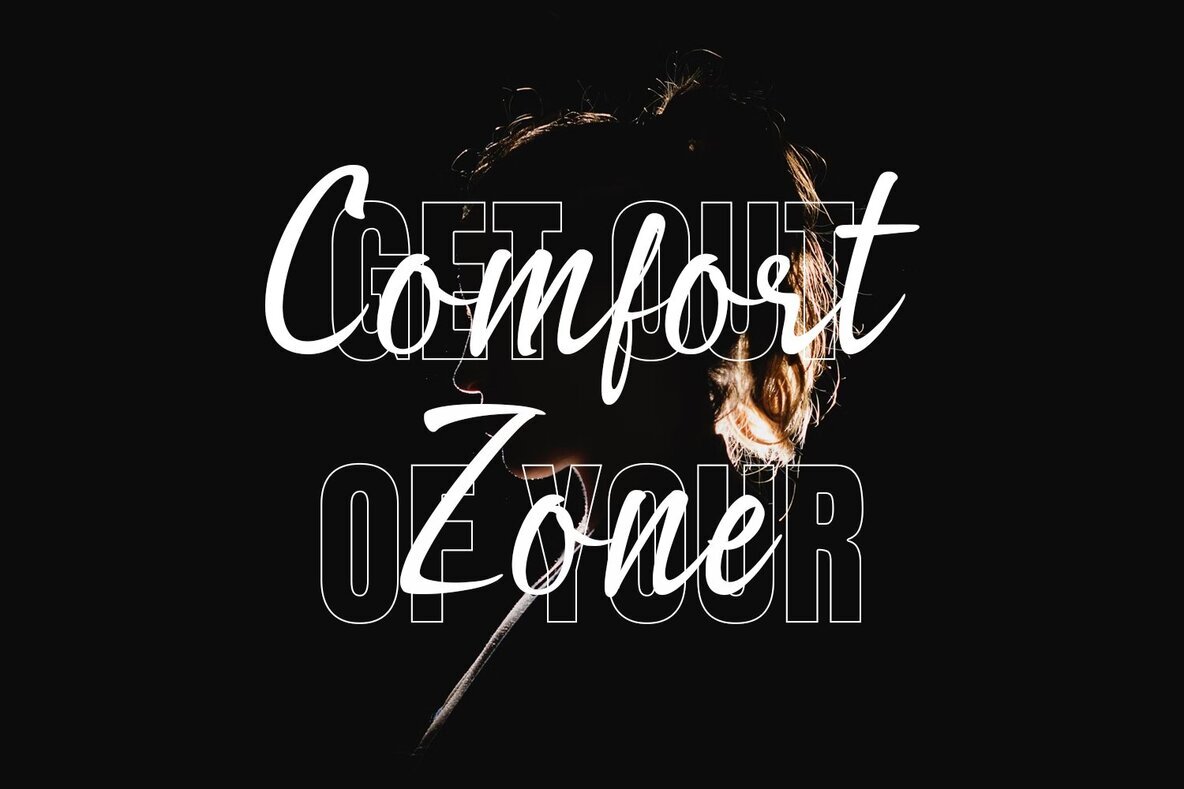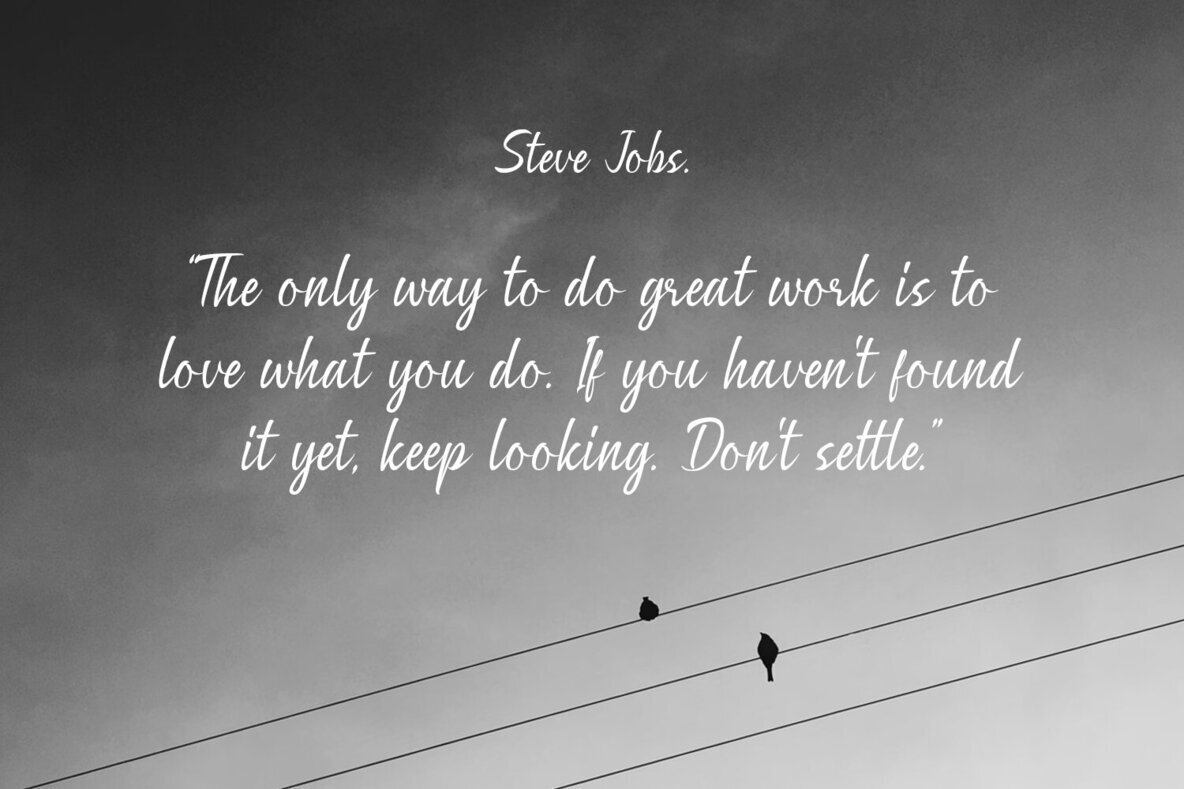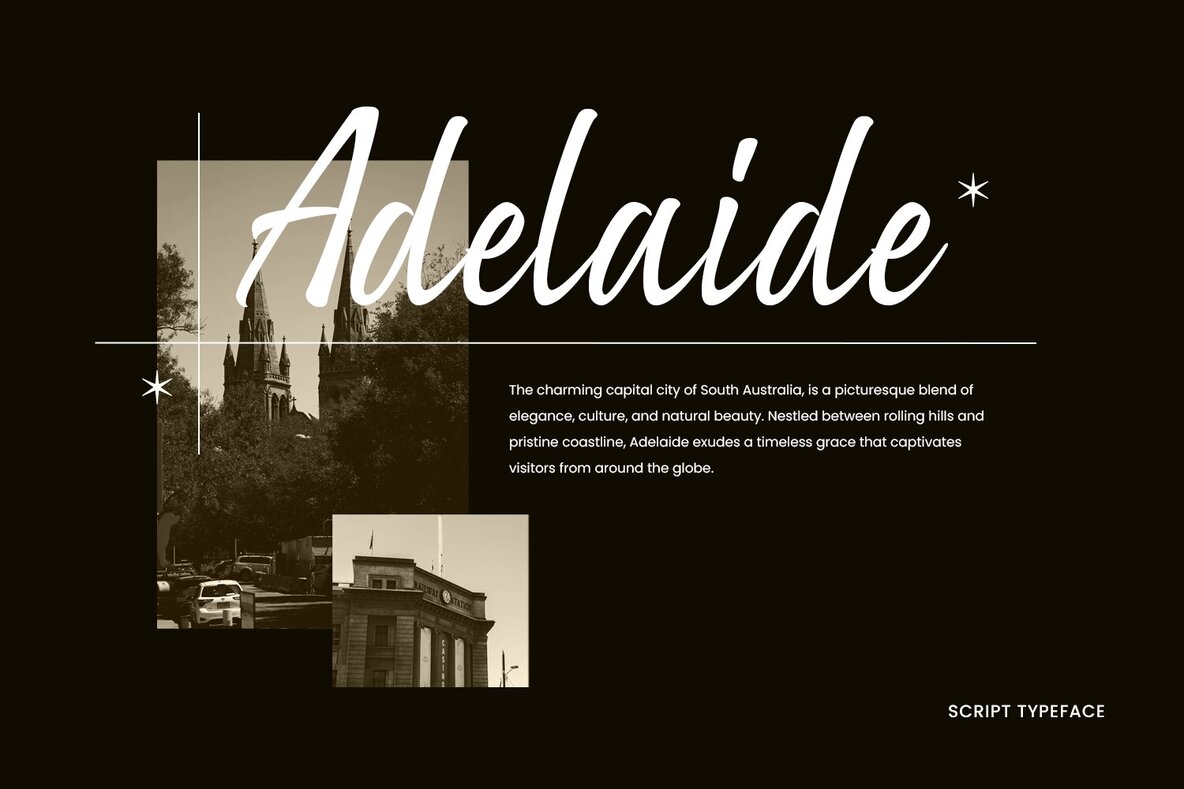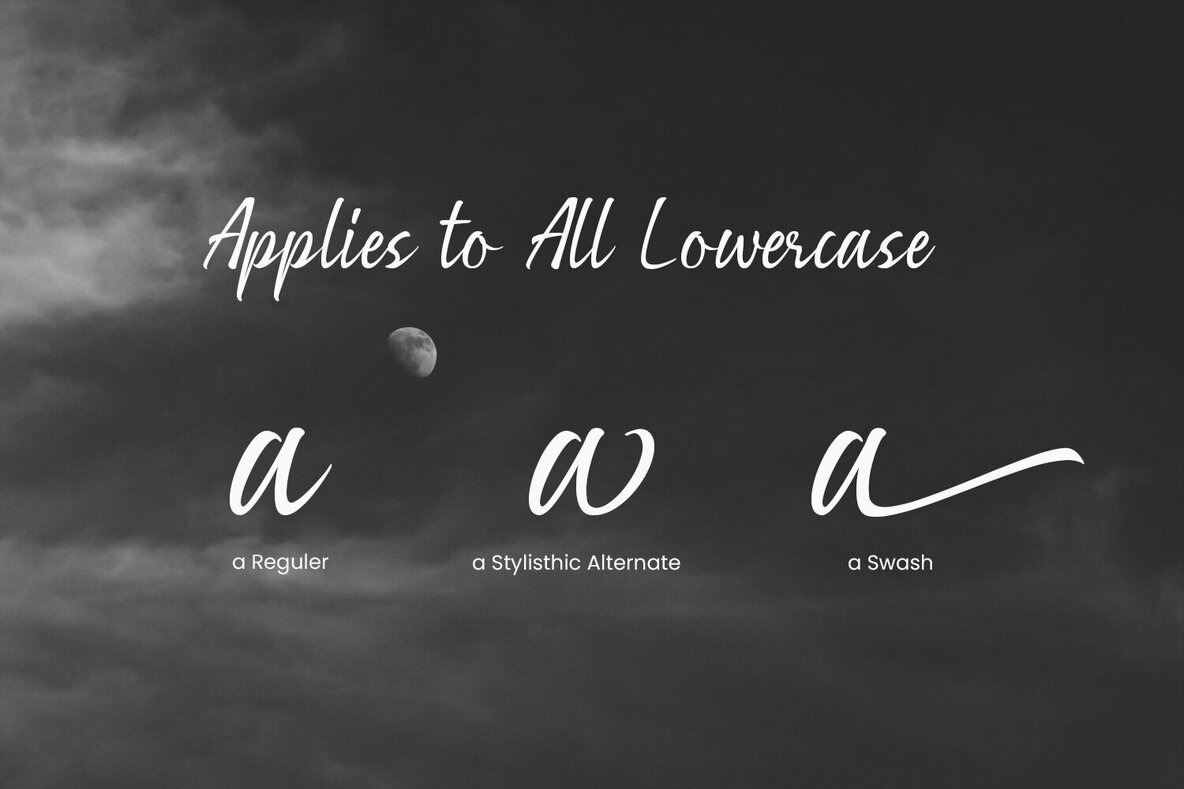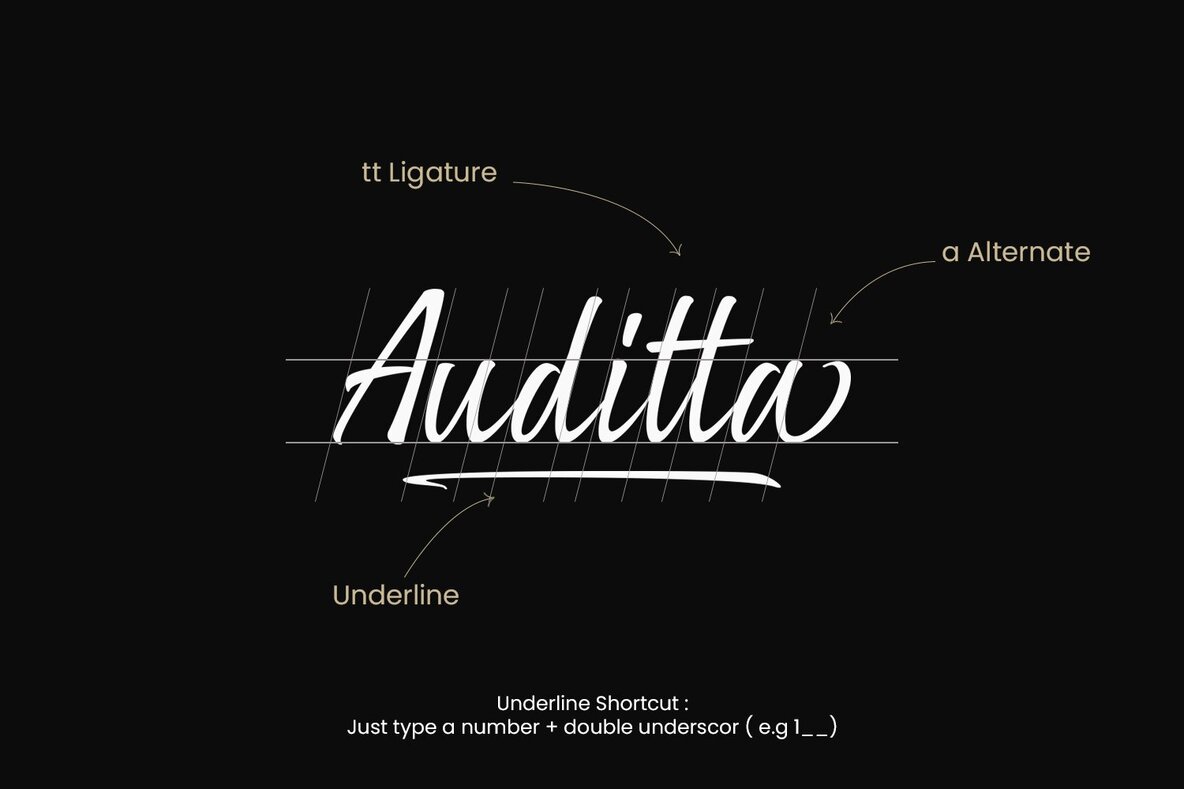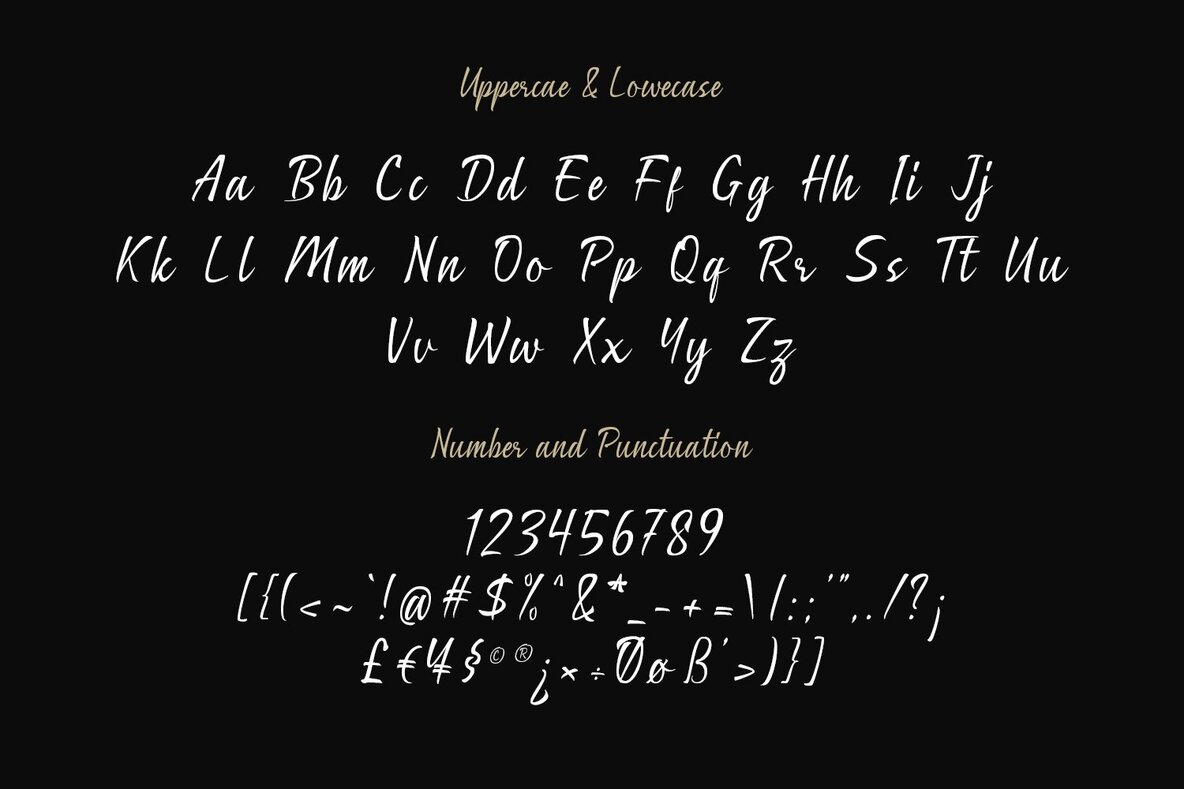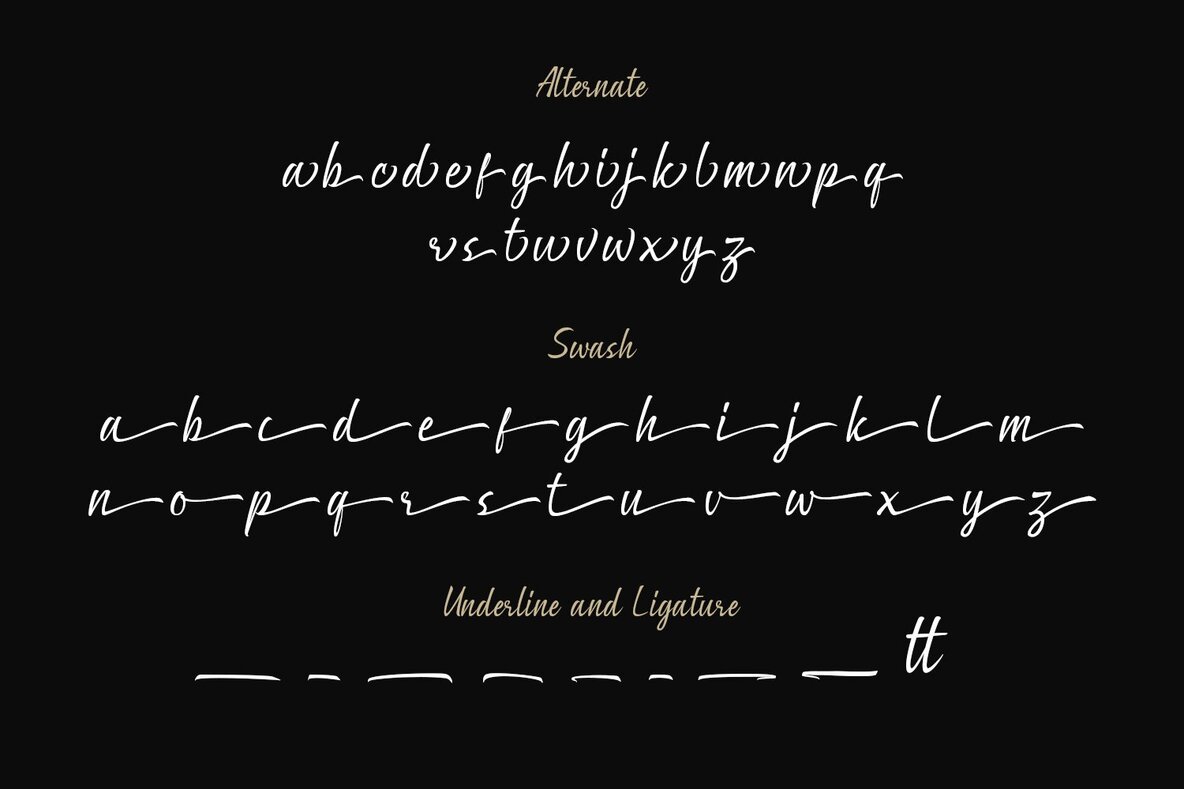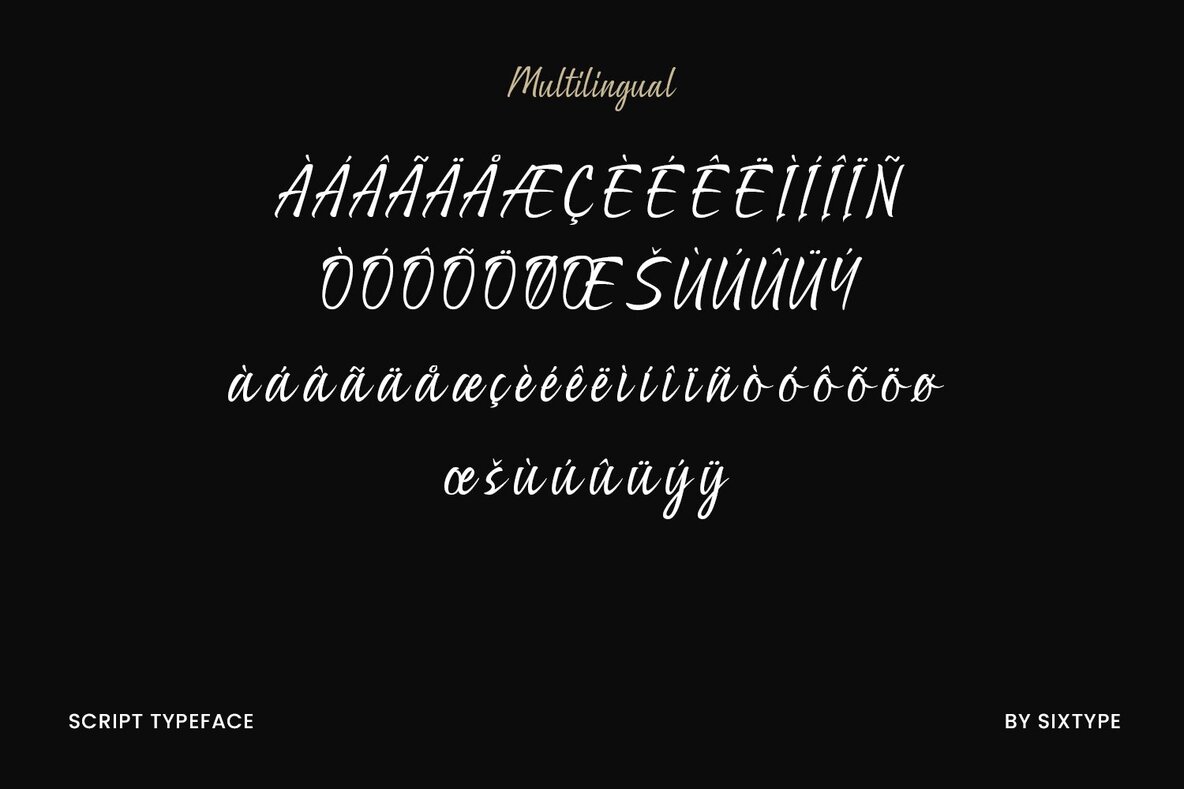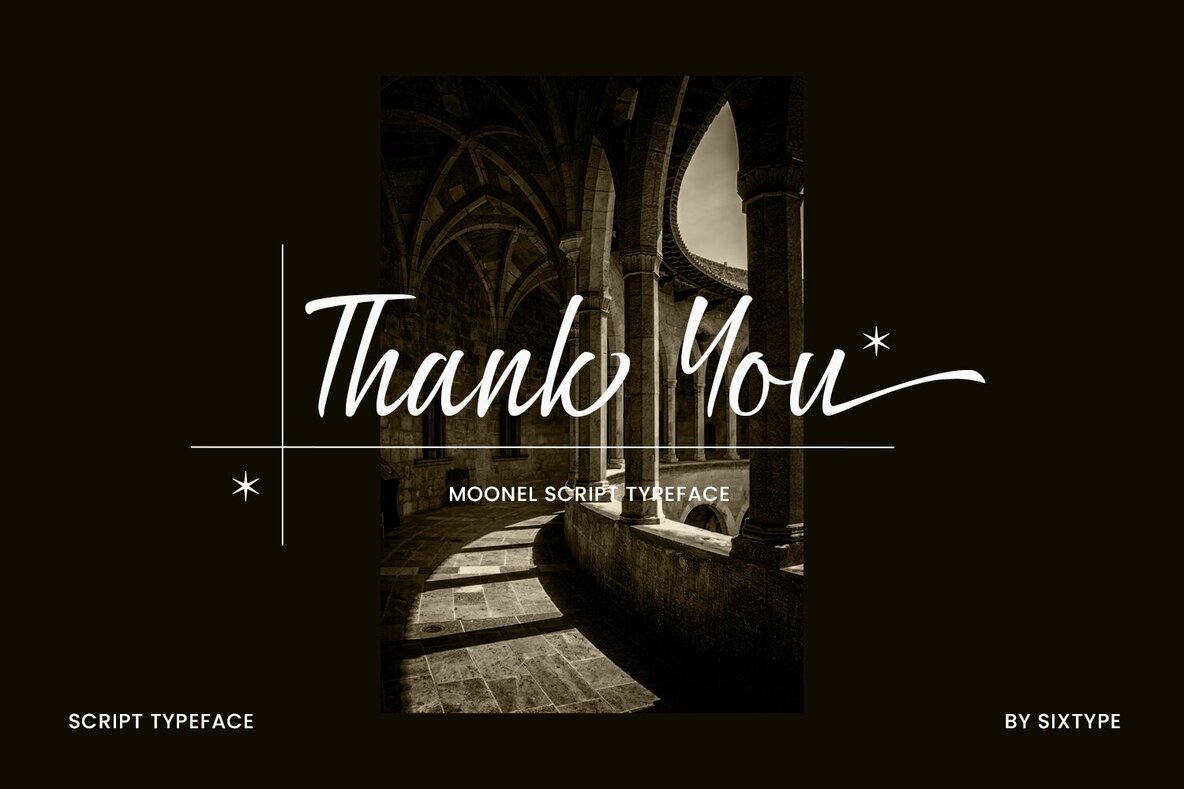
Moonel Font
Moonel Regular
Moonel Font embodies contemporary elegance with its luxurious calligraphic style, making it an ideal choice for elevating a wide range of projects including invitations, greeting cards, branding materials, business cards, quotes, posters, and more. Designed with meticulous attention to detail, this font offers a plethora of alternative characters meticulously organized into OpenType features such as Stylistic Sets, Stylistic Alternates, Contextual Alternates, SWASH, and Ligatures, providing endless possibilities for creative expression and customization. Whether you’re aiming for a sophisticated and refined look or seeking to add a touch of artistic flair, Moonel Font empowers you to create stunning designs that captivate and inspire.